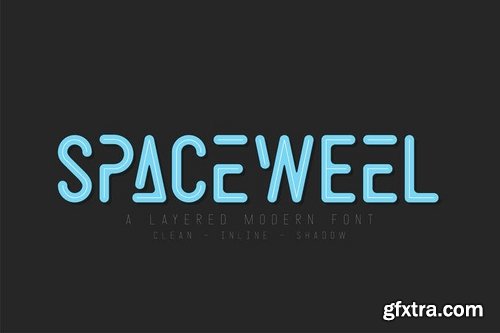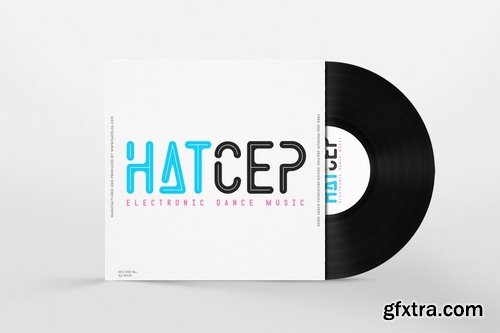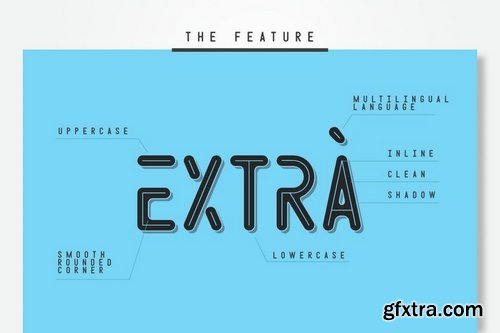
Spacewell Font
Space Weel is a font inspired from modern, future and space movie. Comes with 3 style, Clean, Inline and Shadow with layered system it’s very helpfull to get type design as you need. Have a smooth rounded corner with modern type, suitable and applicable to create any futuristic design, logo, branding, product packaging, invitation, qoutes, t-shirt, label poster etc.
Feature
Uppercase Lowercase Punctuation and Number Multilingual Language